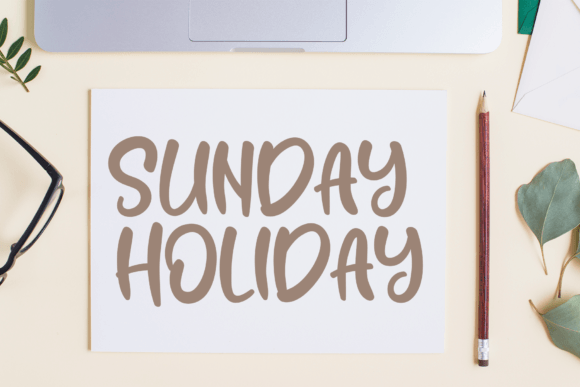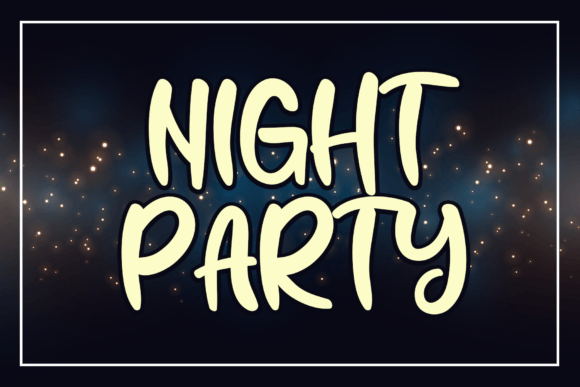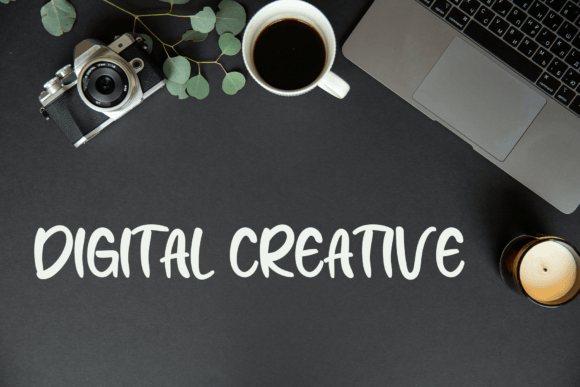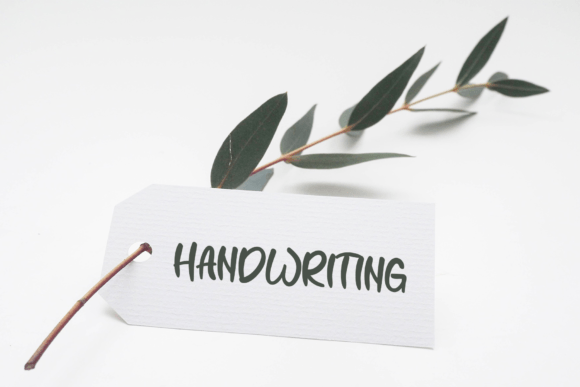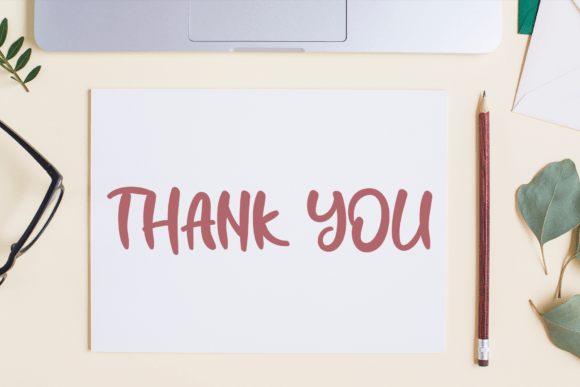
Black Colour Font
About Black Colour Font
Black Colour is a cool and modern handwritten font. Whether you’re using it for crafts, digital design, presentations, or making greeting cards, this font has the potential to become your favorite go-to font, no matter the occasion!